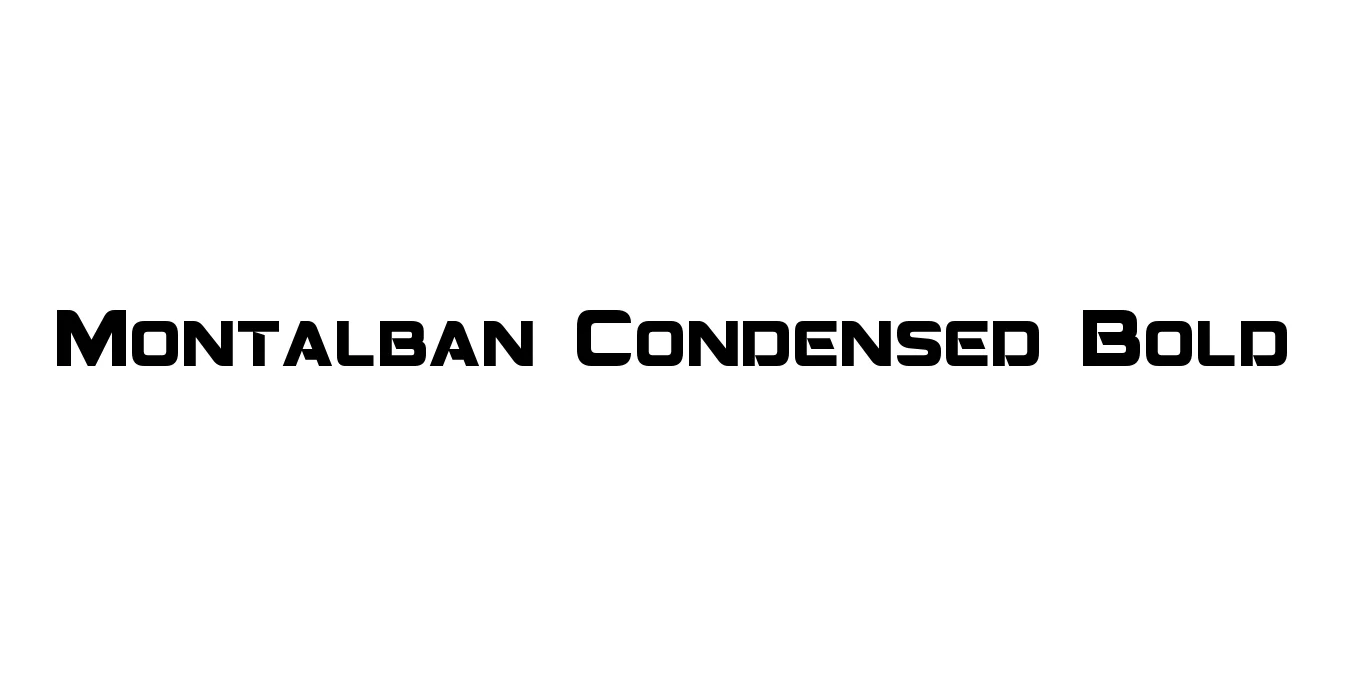
Montalban Condensed Bold
Montalban Condensed Bold is a powerful and assertive display typeface designed to provide a high-impact visual presence in limited horizontal spaces. Characterized by its tall x-height and uniform stroke weight, this font is a standout member of the Montalban family, specifically engineered for clarity and authority. Its geometric foundation is softened by subtle refinements in the letterforms, ensuring that the typeface remains legible even when used in high-contrast environments or dense editorial layouts.
The development of Montalban Condensed Bold was influenced by the need for modern, industrial-strength typography that fits the demands of digital advertising and cinematic titling. By balancing a compact width with a bold weight, the font allows designers to create massive headlines that command attention without overwhelming the surrounding design elements. It has since become a favored choice for creative professionals looking for a blend of Swiss-inspired minimalism and contemporary grit.
Montalban Condensed Bold Best Uses
Ideal for powerful, attention-grabbing titles in magazines and websites.
Excellent for movie posters and event flyers where space is at a premium.
Suited for logos that require a strong, architectural feel.
Great for high-impact promotional graphics and social media banners.